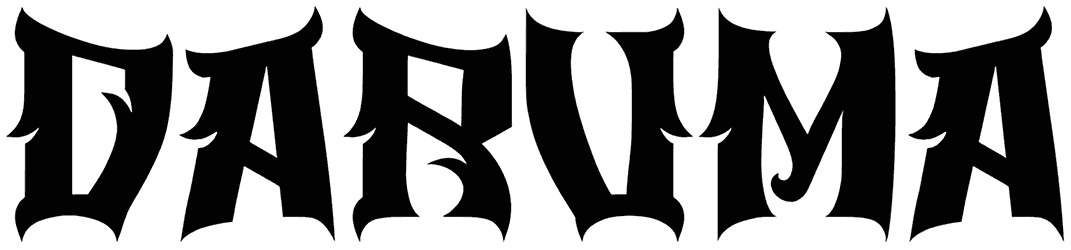
Daebak Mrow Font
Daebak Mrow has that playful Japanese street-sign energy where every word feels ready to jump into a snack ad, music poster, or cute café menu. The letters carry a chunky, cheerful rhythm, so your design gets personality before the audience even reads the message. You can use Daebak Mrow when you want something bold, friendly, and a little unexpected without turning the whole layout into a cartoon.
Try this Asian font on K-pop fan edits, bubble tea branding, ramen packaging, sticker packs, gaming thumbnails, or festival flyers. It has enough punch for headlines and enough charm to keep things lovable.
Designed by: Product Type